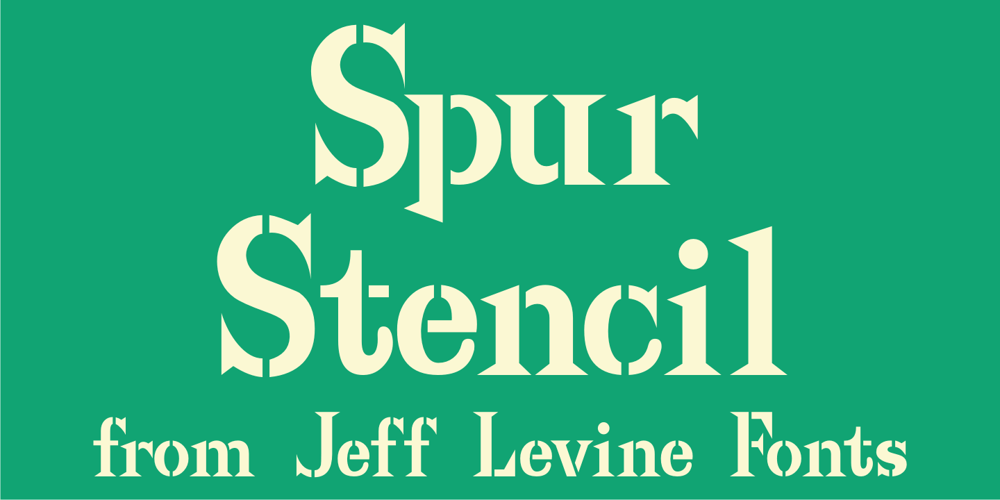
Spur Stencil JNL Font Family was designed by Jeff Levine and published by Jeff Levine. Spur Stencil JNL contains 1 styles and family package options. Spur Stencil JNL gets its inspiration from the single word “stencils” lettered on a vintage package of Glass Wax Christmas stencils.